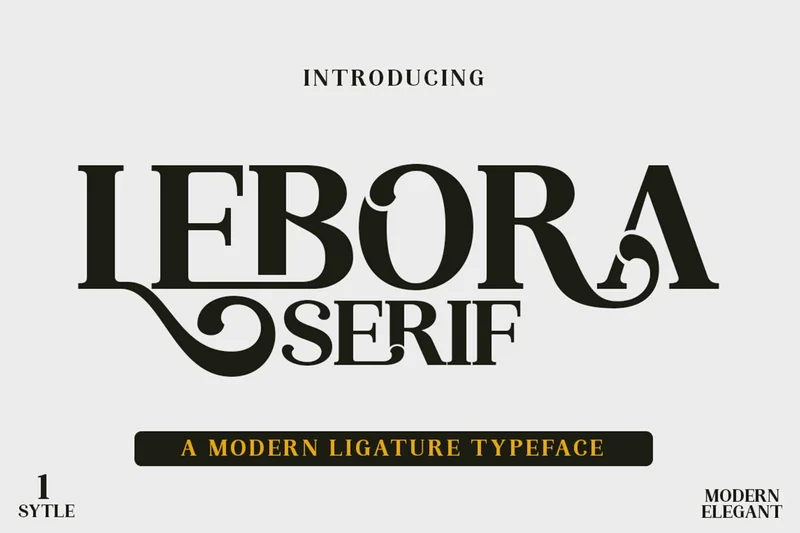
Lebora
Lebora is a modern serif font that blends classic elegance with a contemporary edge. Its standout feature is a unique binding style between characters, adding a distinctive and artistic touch to the overall typeface. With sharp serifs and refined curves, Lebora brings a sense of sophistication and personality, making it ideal for editorial design, luxury branding, and creative projects that seek a bold yet elegant statement.